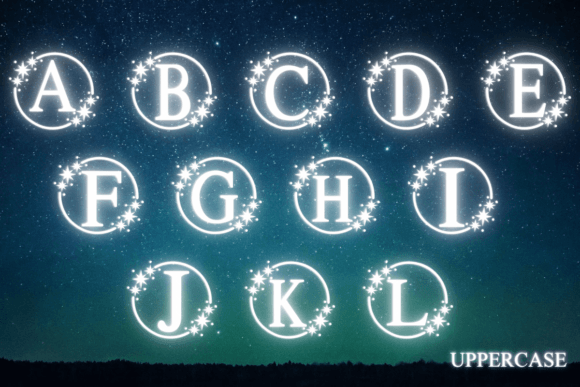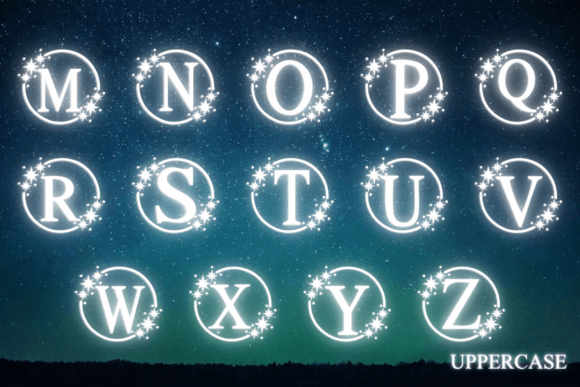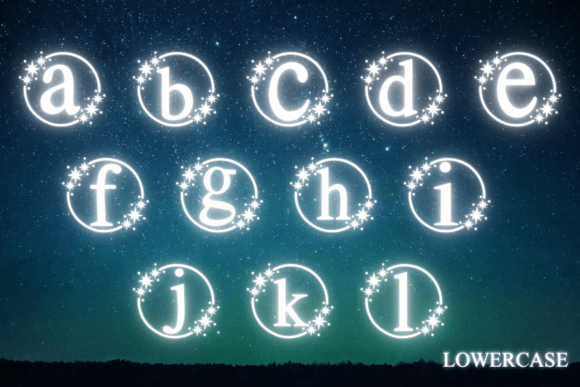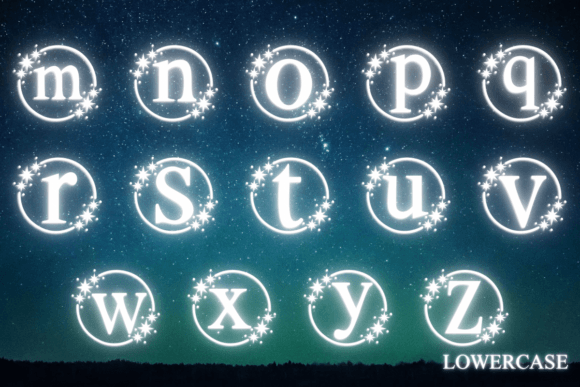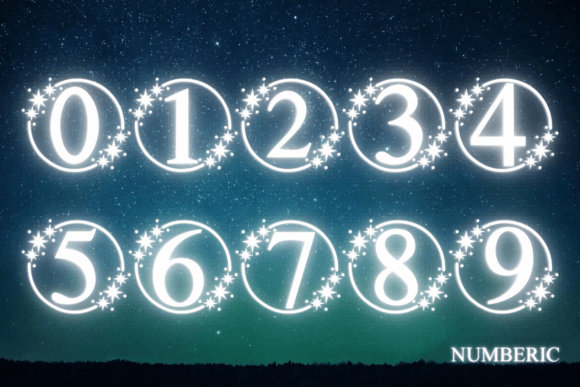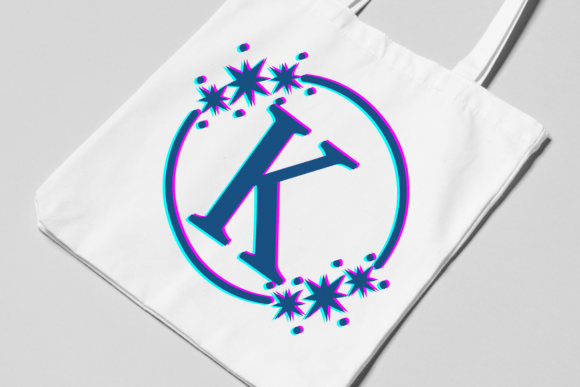
Introduction to Monogram Star Font
Monogram Star is a fun and decorative font where each letter is placed inside a round frame.
The frame is decorated with tiny stars, giving it a charming and whimsical look Perfect for invitations, cards, and creative projects.
Key Features of Monogram Star Font
Why Choose Monogram Star Font?
Monogram Star Font offers exceptional quality and versatility, making it a valuable addition to your design toolkit. Whether you’re creating for personal projects or commercial use, Monogram Star Font delivers professional results.